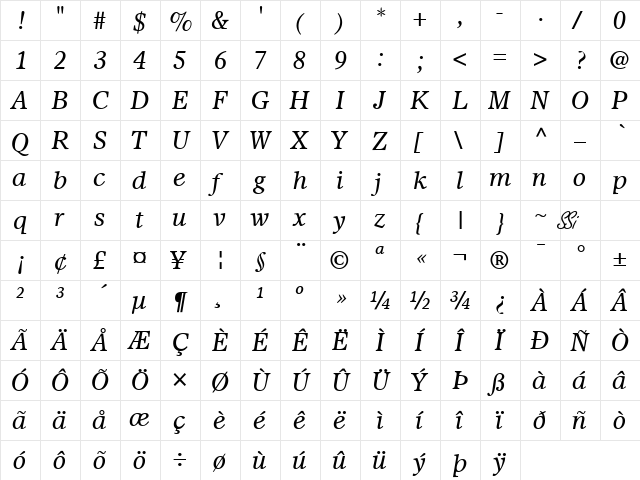
Sterling SSi Italic
Design Context for Sterling SSi Typeface
Sterling SSi offers clean, dependable letterforms without strong stylistic allegiance, making it a practical choice for designers who need flexibility. The slanted form adds forward momentum and visual energy.